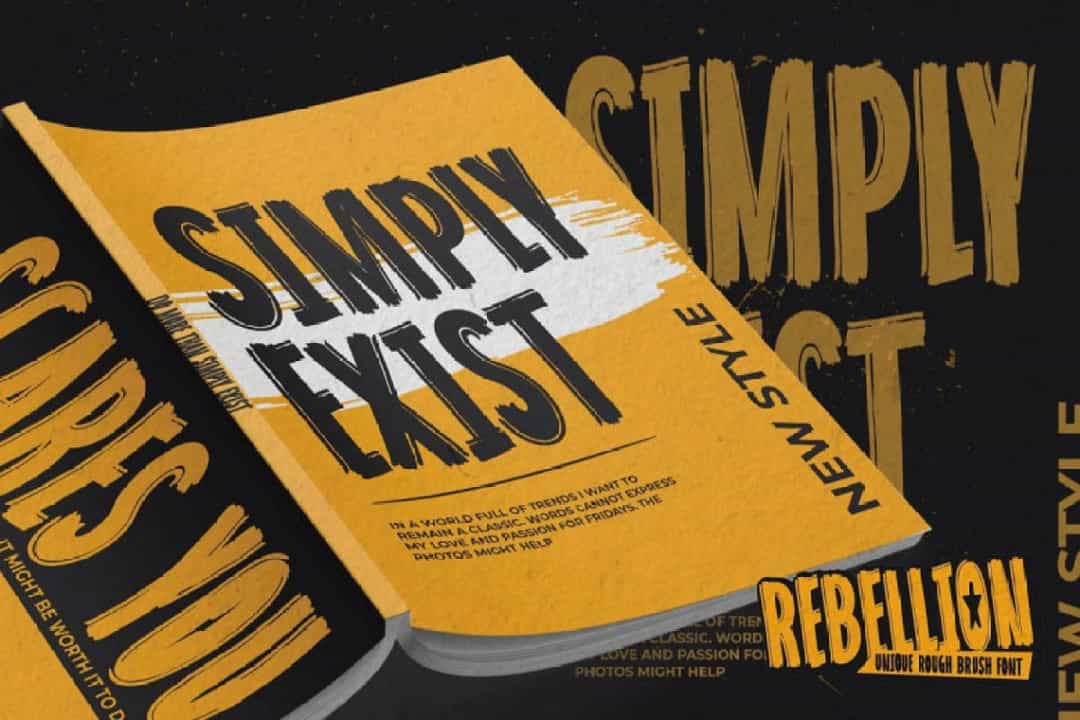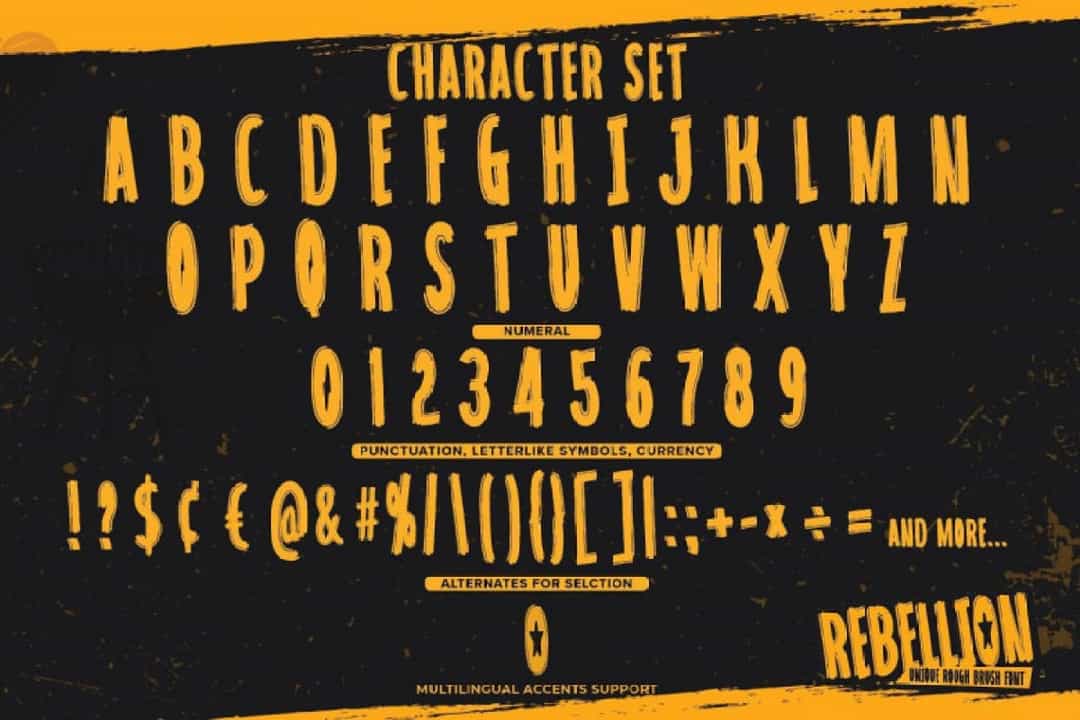
REBELLION is an exciting new font to add to your collection, boasting its distinctive rough Brush style with its strong yet classy appearance. Perfect for watermarking photos as well as watermarking logos or branding invitations for watermarking events like wedding themes label packaging for special events which require handwriting.